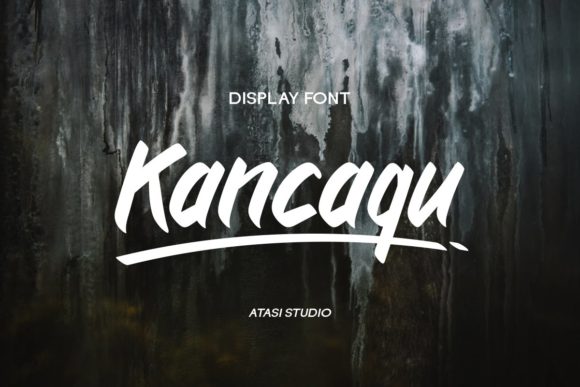
Behold Kancaqu Font, a Visual Symphony for the Eyes!
In the realm of visual communication, fonts hold a sway like no other. They are the storytellers, the mood weavers, the architects of perception. Kancaqu Font, a stunning display font, is more than just a collection of letters; it's an artistic masterpiece, a symphony of visual delight.
Kancaqu Font: A Raw, Urban Edge That Captivates
Crafted with precision and an innate sense of style, Kancaqu Font exudes a raw, urban edge that resonates with the modern, the bold, and the unconventional. Its sharp angles and deliberate imperfections create a visual intrigue that demands attention, making your designs leap off the screen.
Unleash Your Creativity with Kancaqu Font
With Kancaqu Font, your creativity takes center stage. Whether you're designing logos, posters, social media graphics, or eye-catching headlines, this font becomes your trusted ally, transforming ordinary words into captivating statements. Its versatility knows no bounds; it seamlessly adapts to any project, adding a touch of edginess and originality.
Make a Statement, Leave a Lasting Impression
In a world saturated with visual noise, standing out is paramount. Kancaqu Font empowers you to do just that. Its bold presence commands attention, leaving an indelible mark on your audience. Let your designs speak volumes, captivating and compelling, ensuring your message cuts through the clutter and resonates deeply.
A Font That Speaks to Your Soul
Kancaqu Font is not just a collection of characters; it's an expression of your individuality, a reflection of your unique style. Its raw energy and urban flair connect with your creative spirit, allowing you to pour your heart and soul into your designs. With Kancaqu Font, your work becomes a true extension of you, a testament to your artistic vision.
A Journey of a Thousand Designs Begins with Kancaqu Font
Take the first step towards design excellence with Kancaqu Font. Let it be your muse, your guiding light, as you embark on a creative odyssey. Experience the joy of transforming ordinary text into captivating visuals, leaving your audience spellbound.